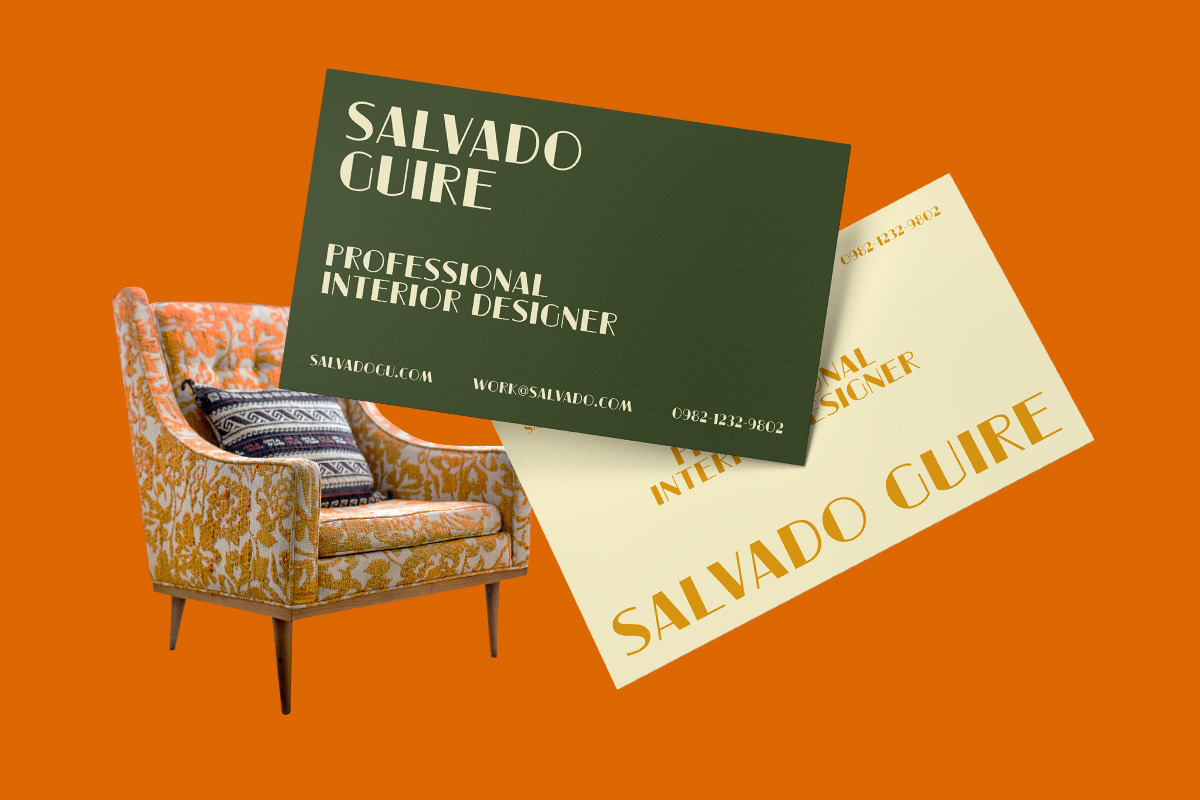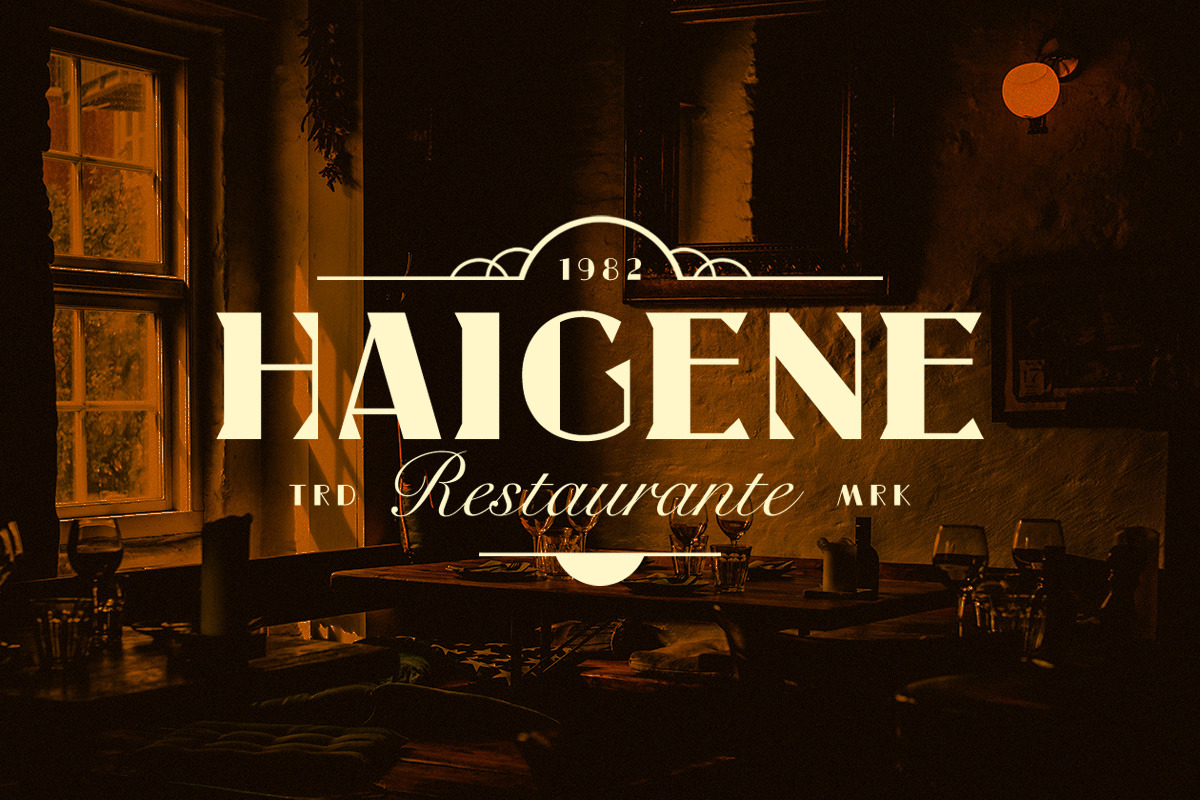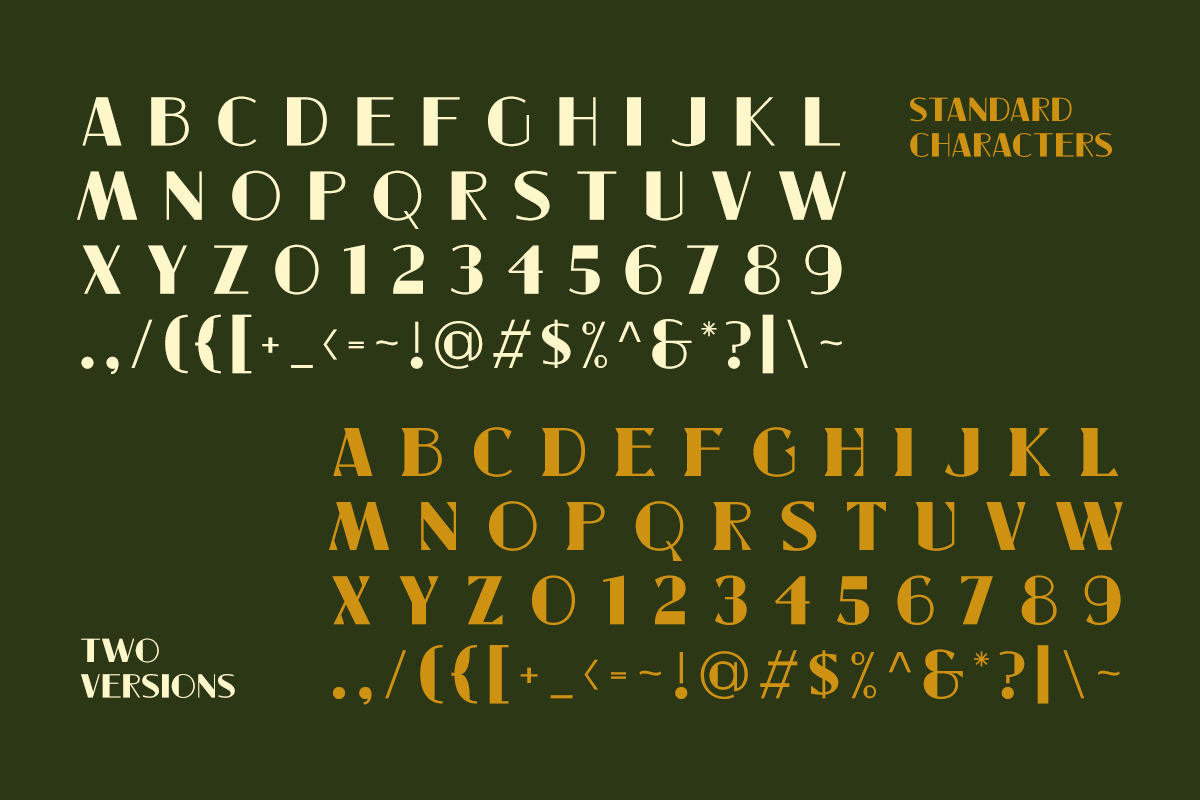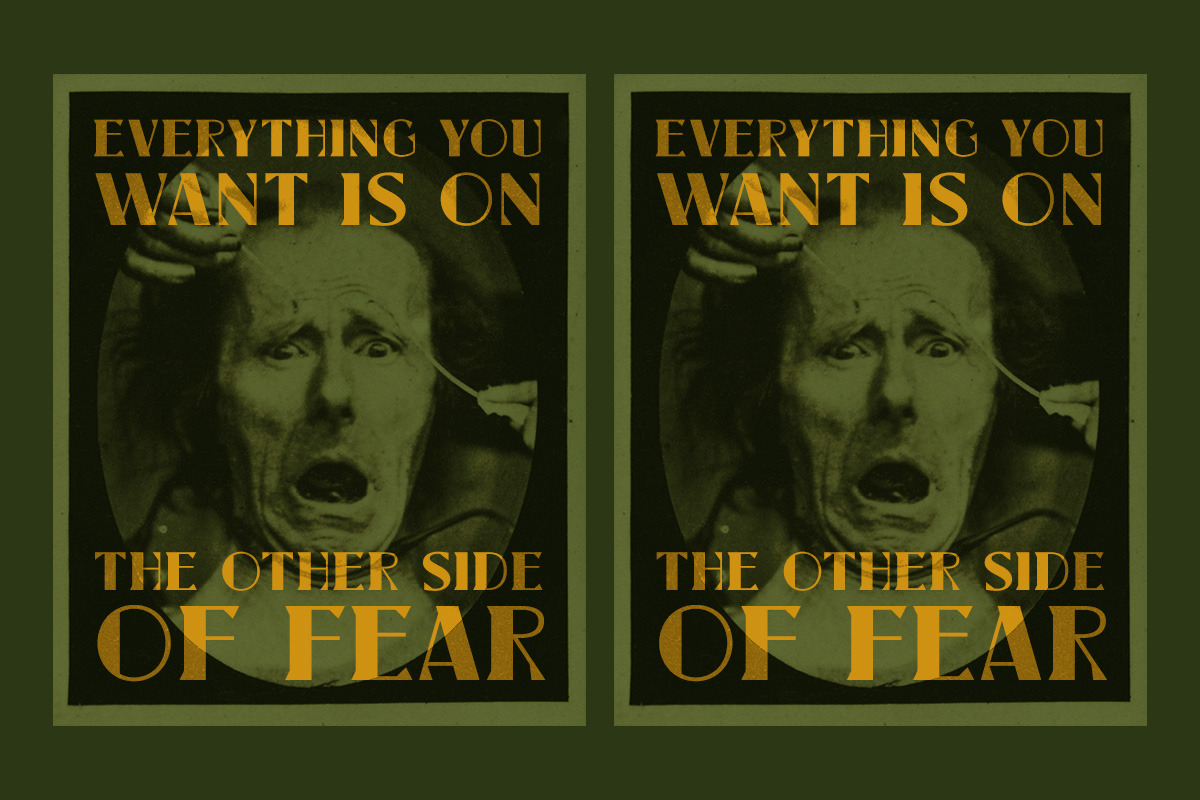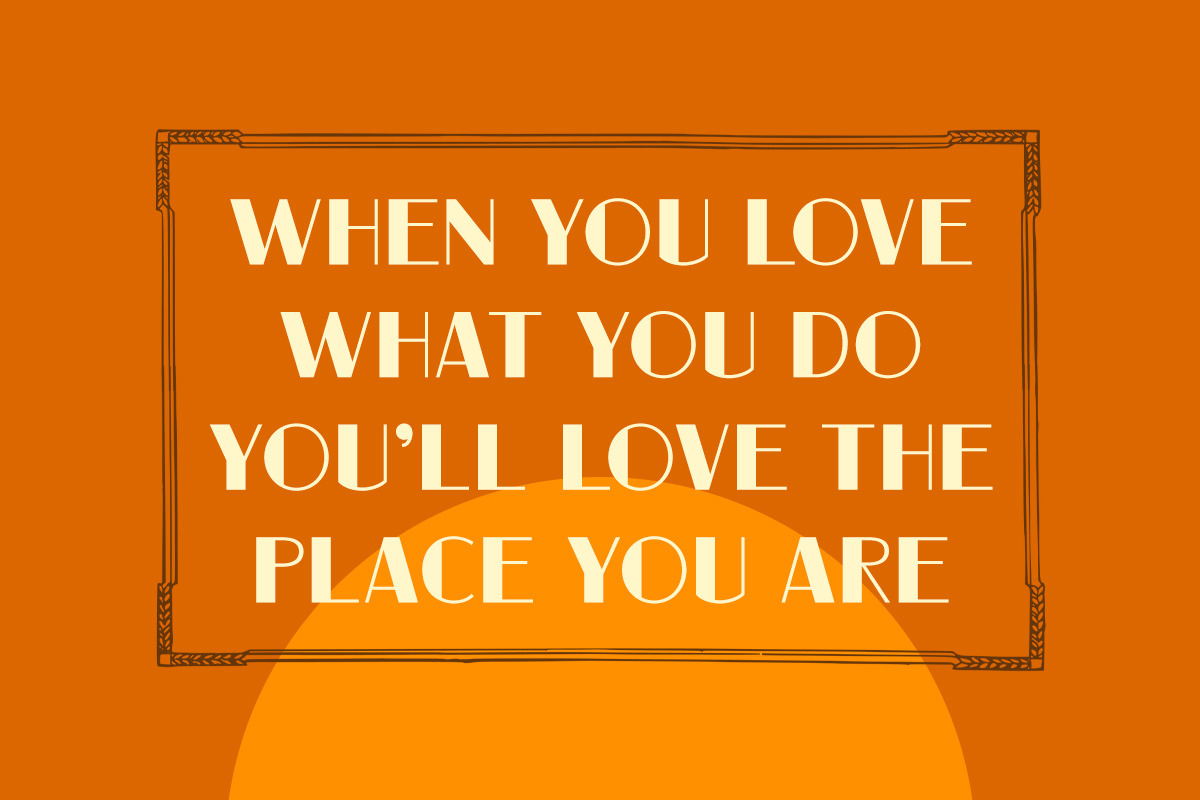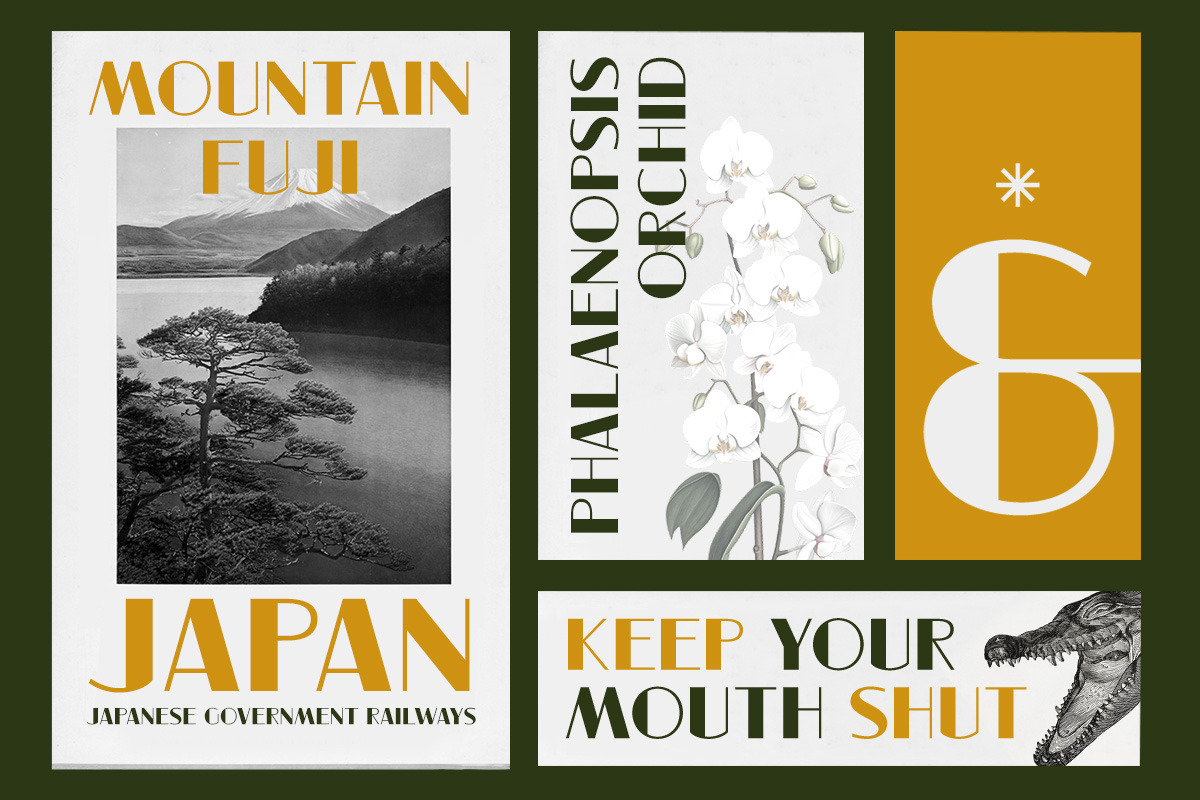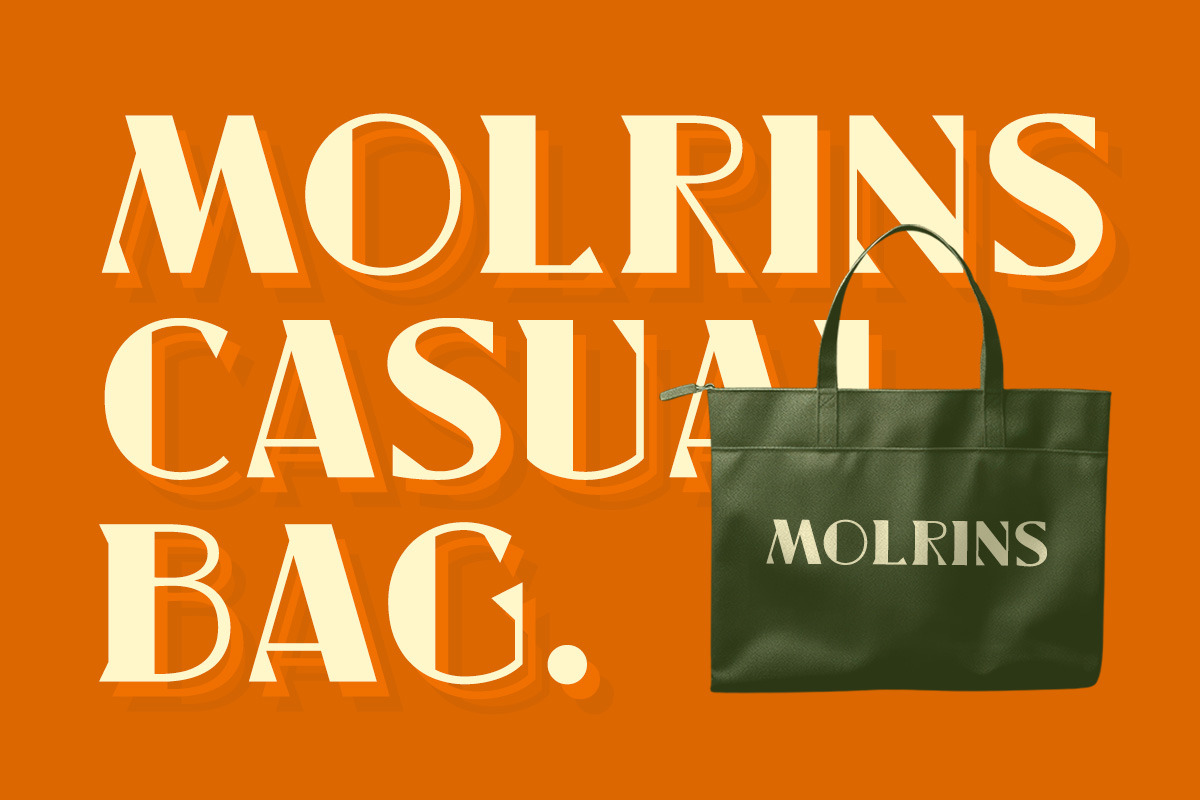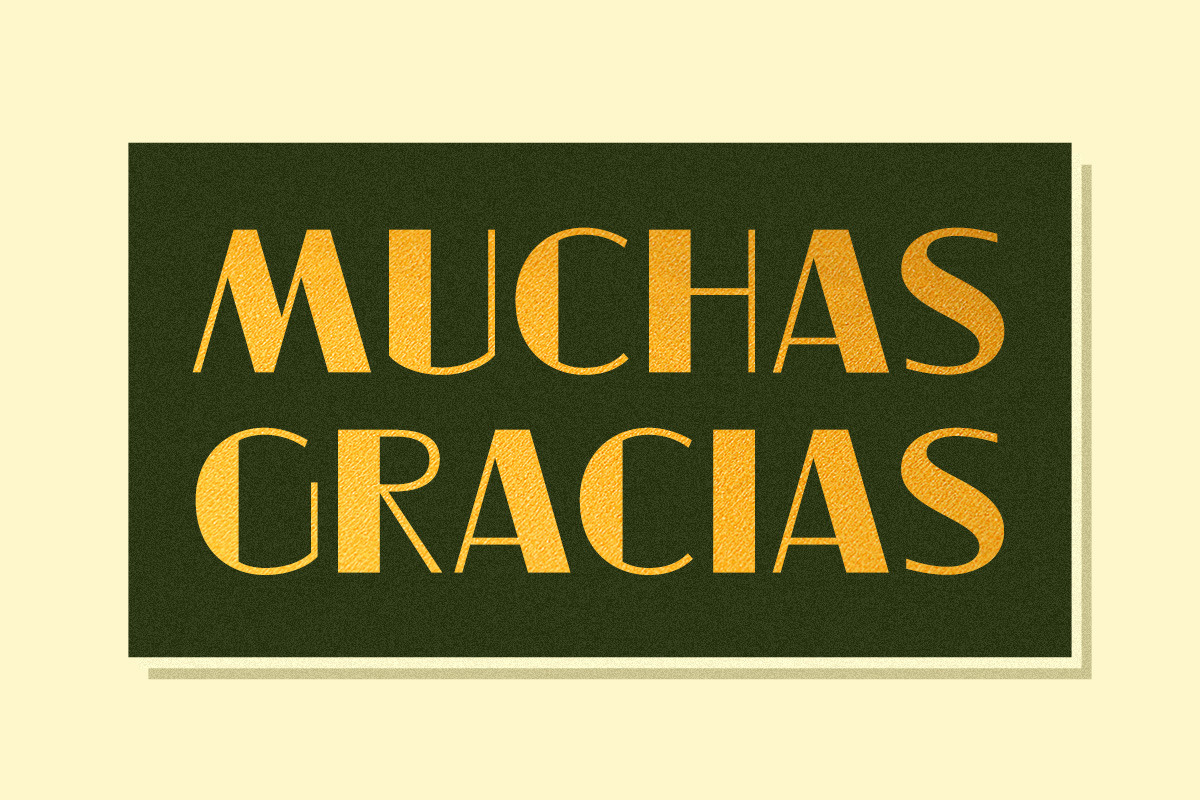
Cesandor Sans & Serif
Cesandor is a brand new font with 2 styles : Sans & Sans Serif. This font perfectly made to be applied especially in logo, and the other various formal forms such as invitations, labels, logos, magazines, books, greeting / wedding cards, packaging, fashion, make up, stationery, novels, labels or any type of advertising purpose.